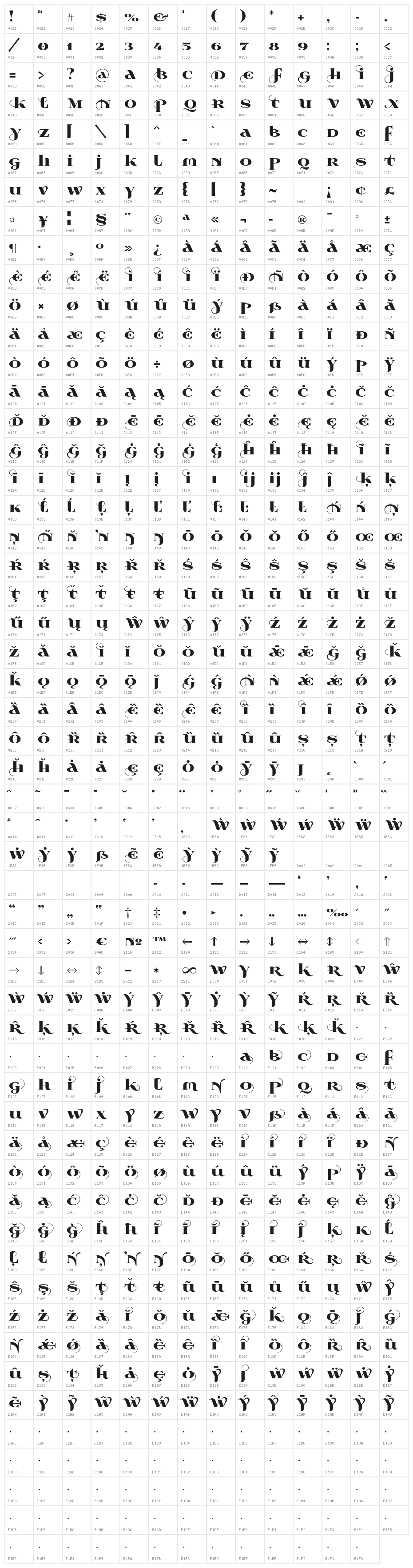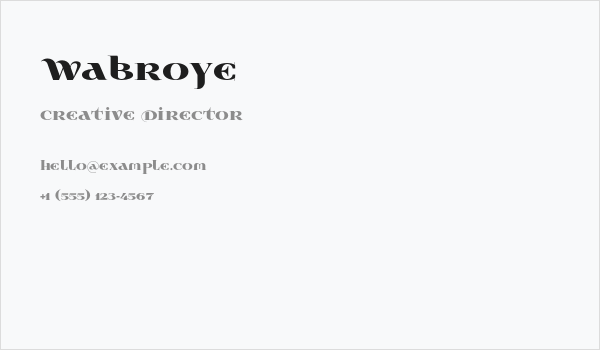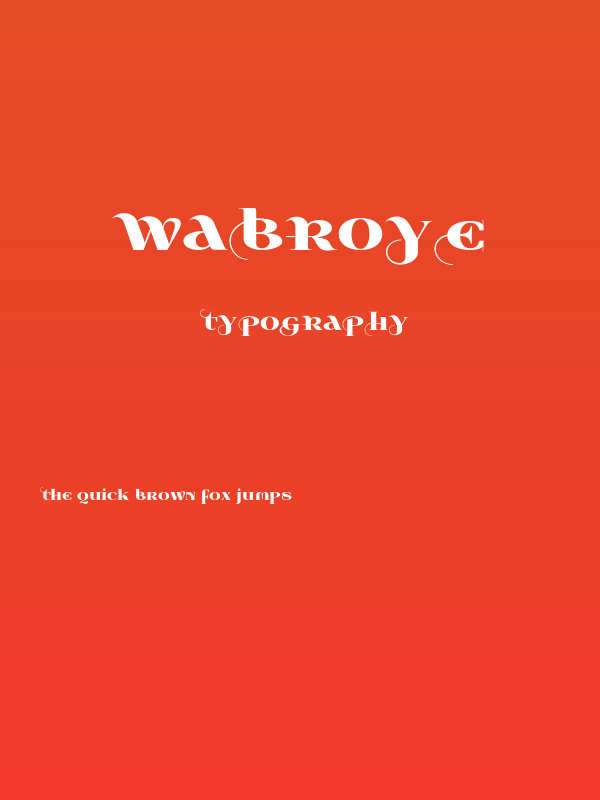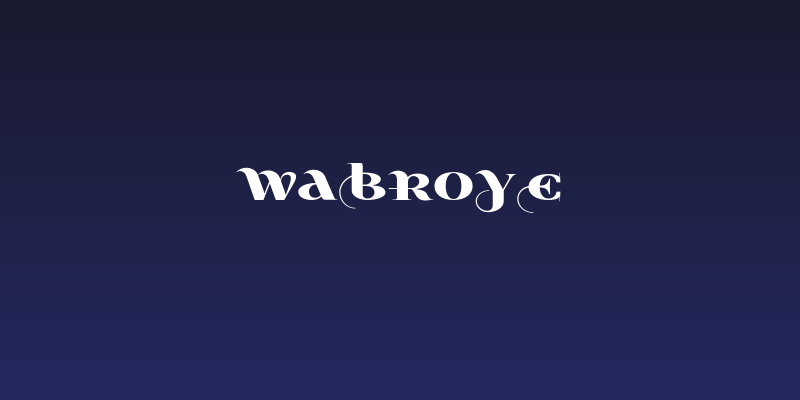
This font features a unique and artistic design with a blend of modern and decorative elements. The characters exhibit a high contrast in stroke thickness, creating a dynamic and bold appearance. The uppercase letters are particularly striking, with intricate curves and flourishes that add a sense of elegance and sophistication. The lowercase letters maintain a consistent style, complementing the uppercase with their own subtle embellishments. The numerals are bold and clear, ensuring readability while maintaining the overall aesthetic. Special characters are designed with the same attention to detail, making them an integral part of the font's visual identity.
| Use Case | Headlines, Logos, Artistic projects |
| Proposed Projects | Ideal for branding, logo design, headlines, and artistic projects that require a bold and decorative touch. |